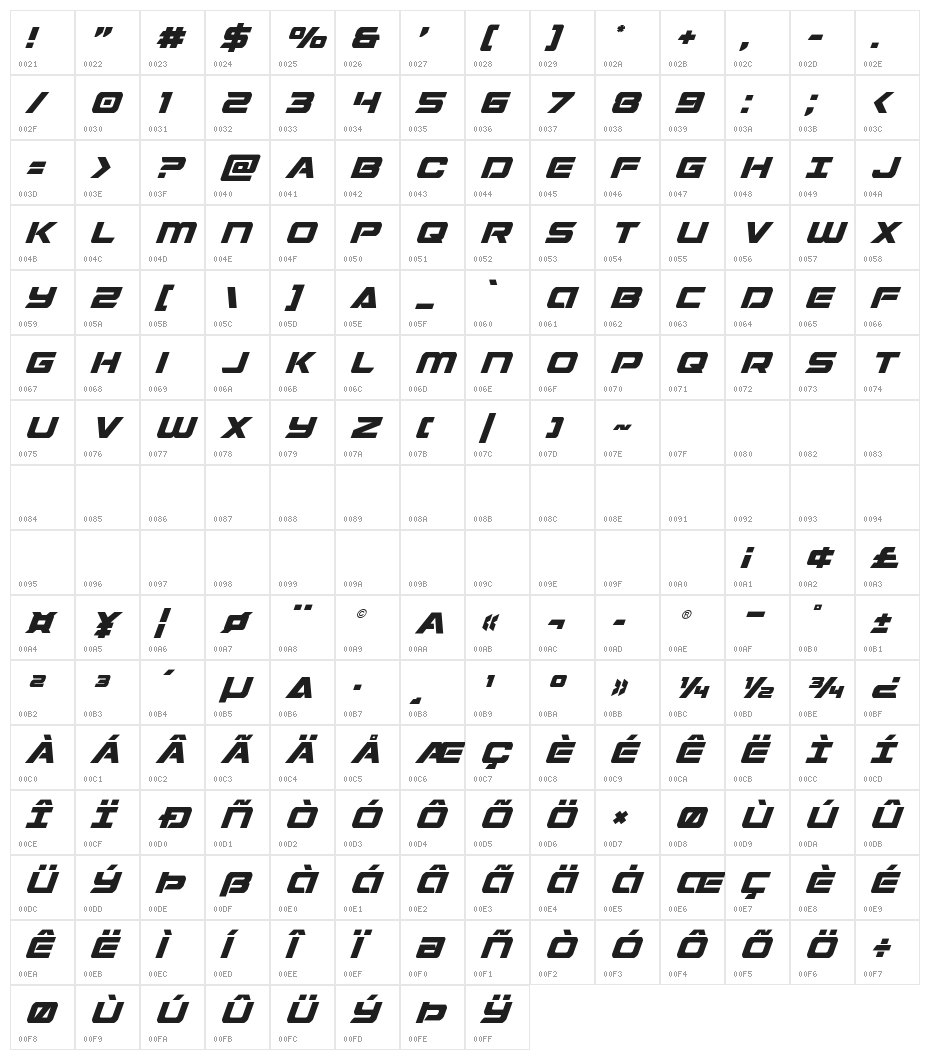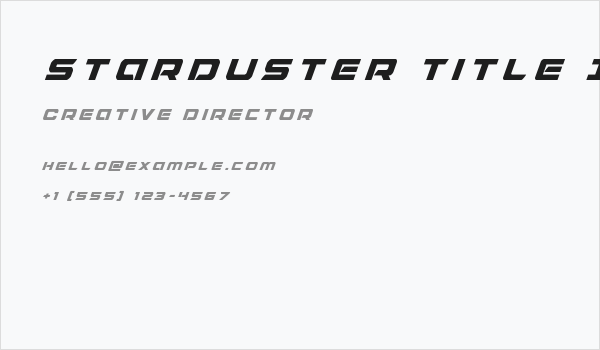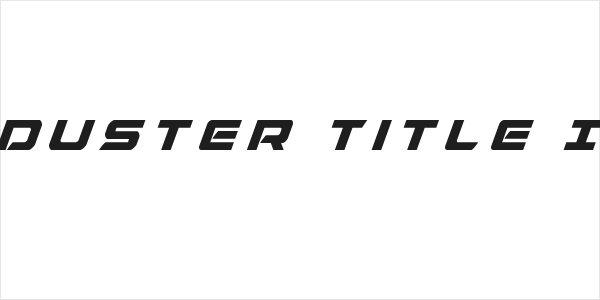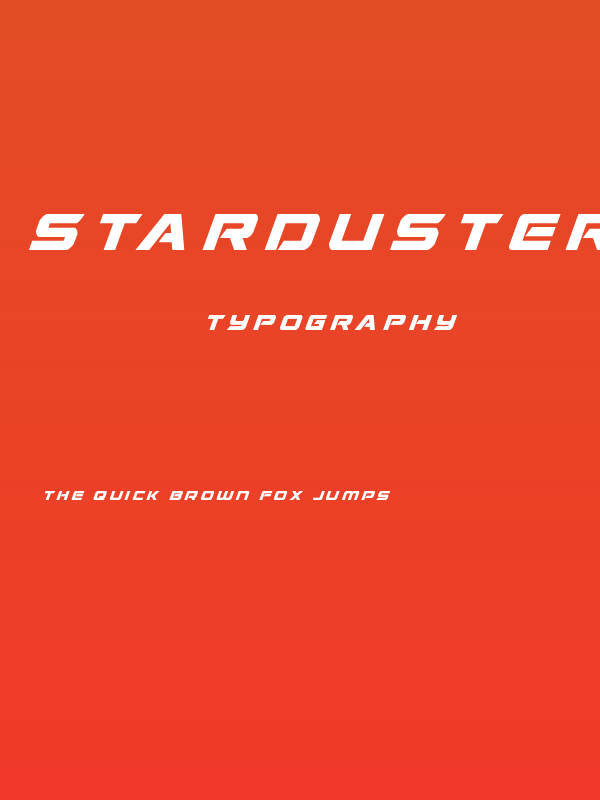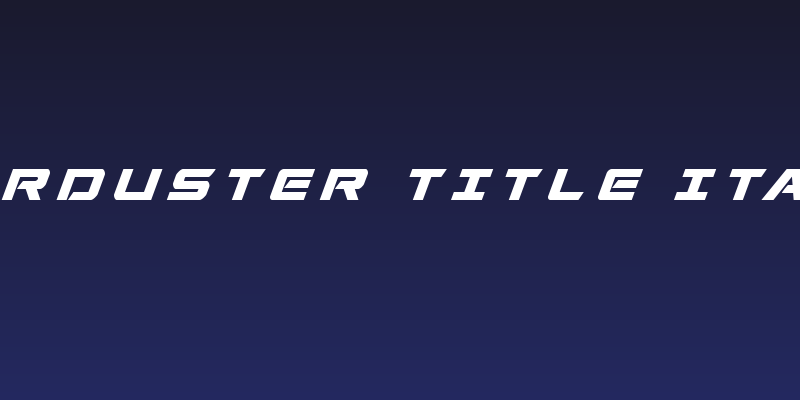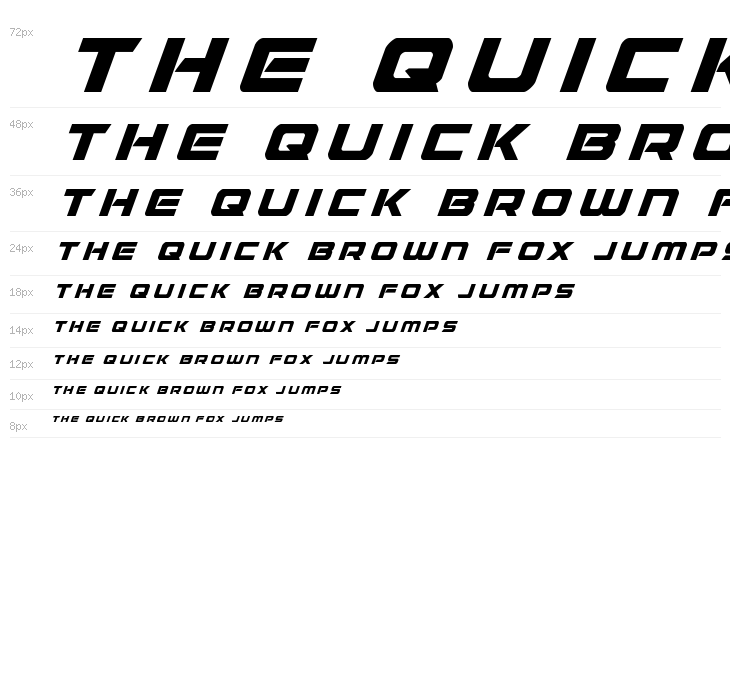
Starduster Title Italic Font
Starduster Title Italic Description
This font exhibits a futuristic and dynamic style, characterized by its italicized and angular letterforms. The characters are bold and slightly condensed, giving a sense of speed and modernity. The uppercase and lowercase letters maintain a consistent slant, enhancing the italic effect. The numerals and special characters follow the same design principles, ensuring uniformity across all glyphs. The overall appearance is sleek and contemporary, making it suitable for projects that require a modern and energetic aesthetic.
| Proposed Projects | Ideal for sci-fi themed designs, technology branding, video game titles, and modern advertising. |